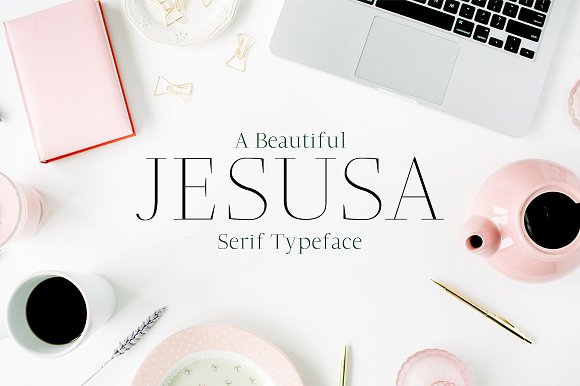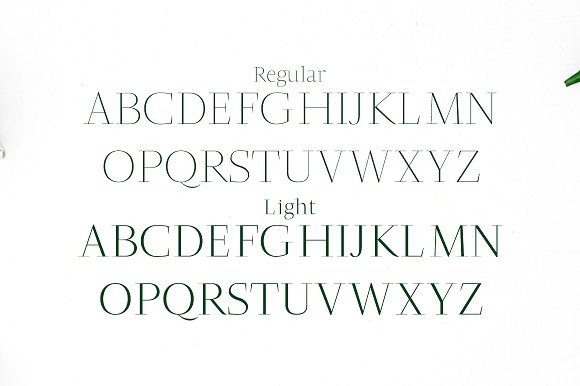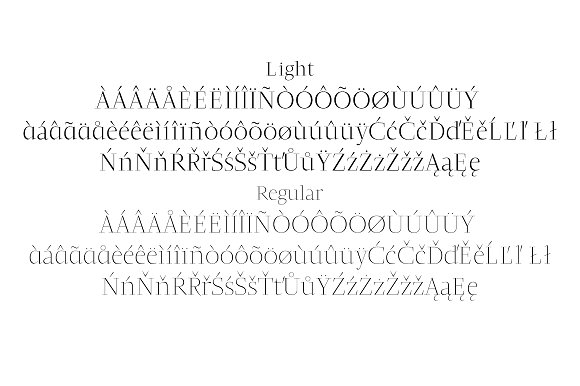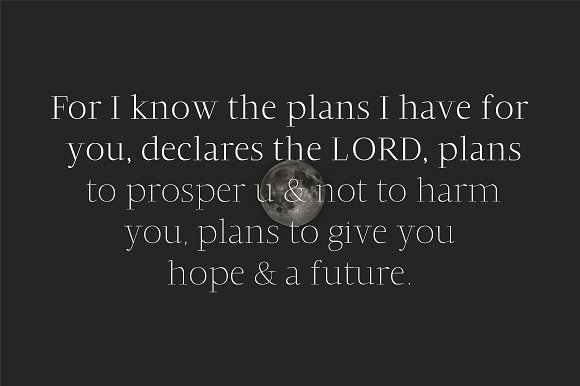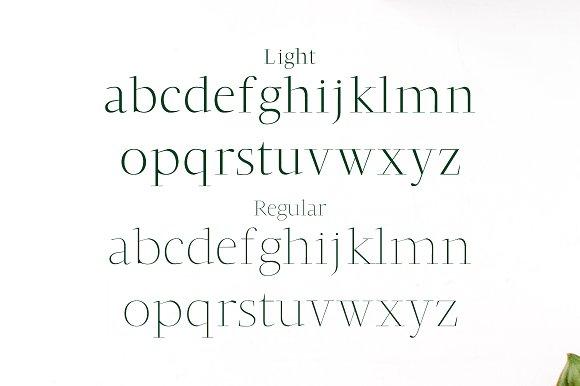
Jesusa Serif Typeface
Jesusa Serif Typeface is a simple serif font family, which contains 2 weights and It features unique and modern serif look and feel. Perfect for gorgeous logos, titles, web layouts and branding. It looks gorgeous in all caps with a wide-set spacing if you want to try a classy look, or beautiful on its own in capital and lowercase letters for something completely timeless.